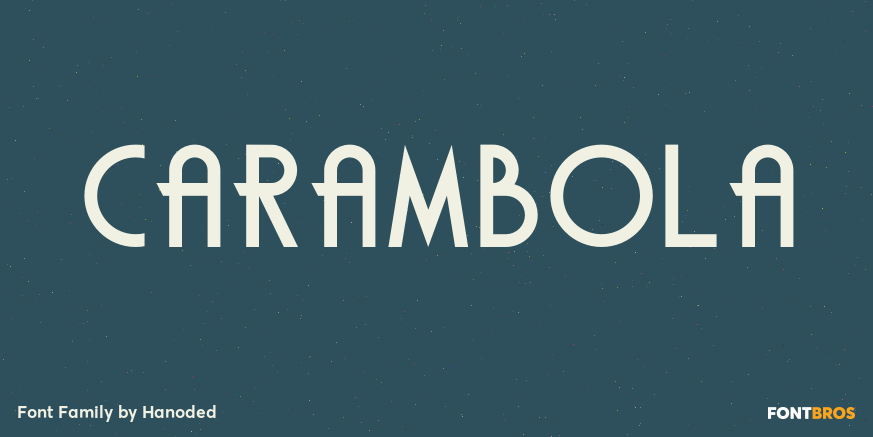
Carambola
About Carambola
Carambola is a beautiful art deco typeface based on several posters from the 1920\’s. It is an elegant and stylish font with generous curves and sharp ends. Carambola is multilingual and comes in all caps only.